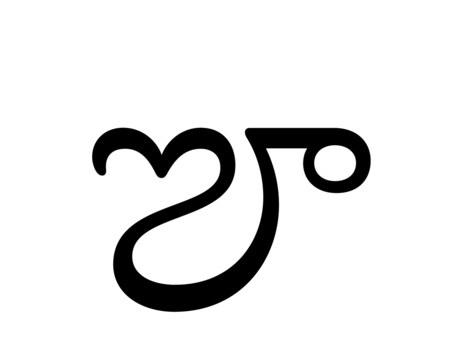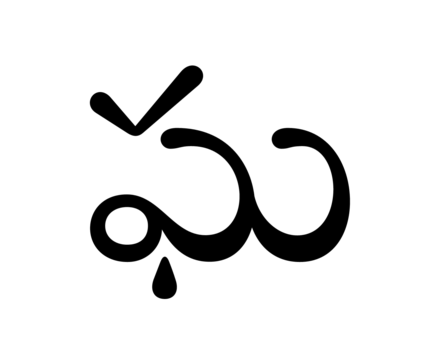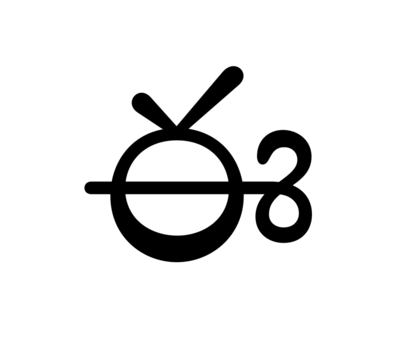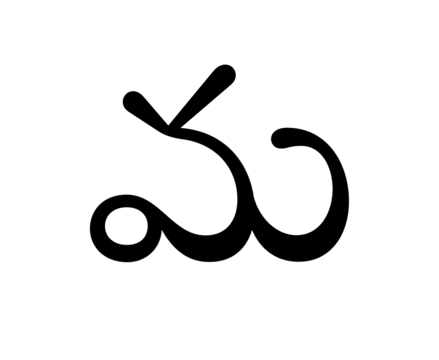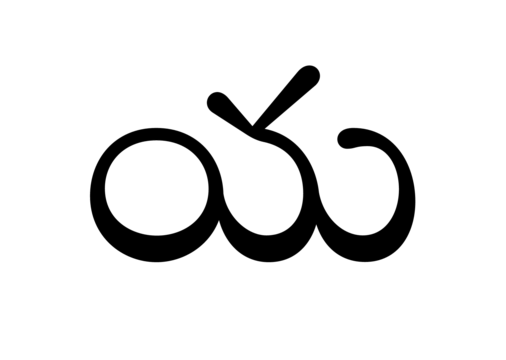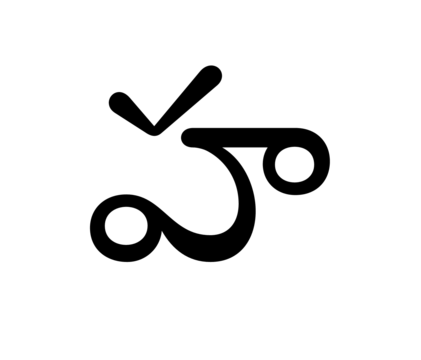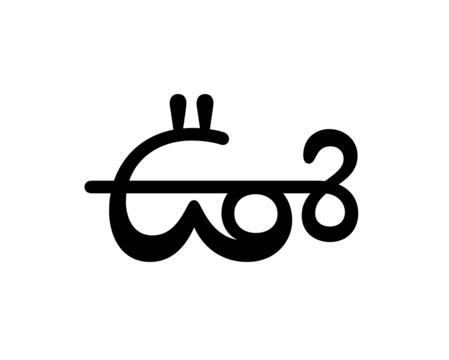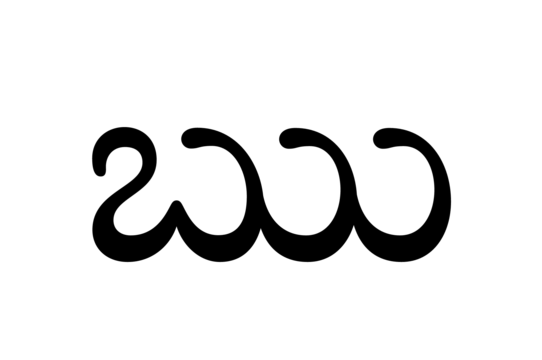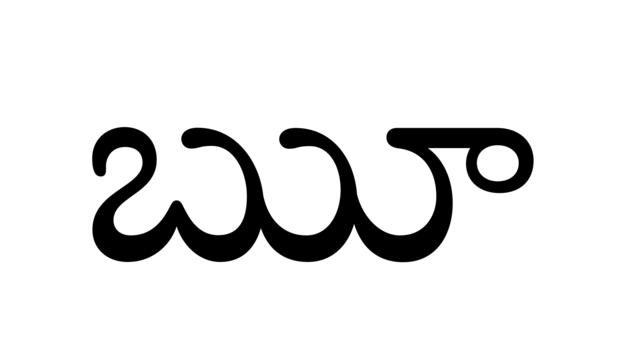
Deccan Telugu is the Indian Type Foundry’s first retail release for the Telugu script. This family – designed by Ramakrishna Saiteja – offers five fonts ranging in weight from Light through Bold; each contains 719 glyphs, including the many conjuncts and ligatures necessary for proper Telugu shaping. Deccan Telugu is a text design. Like the traditional typefaces that have been used in the design of text-heavy Telugu documents for decades, Deccan Telugu’s forms feature a strong vertical contrast. The sides of the characters tend to be drawn with rather thin hairlines, while the curves on the bottom portions of the base characters are gracefully curved and feature heavy swelling. While this amount of contrast is to be expected in the Bold weight, Saiteja has brought it in every style excellently, including the Light.
| Family Name | Deccan Telugu |
|---|---|
| Designer(s) | Ramakrishna Saiteja |
| Available Style | Light, Regular, Medium, Semibold, Bold |
| Classification | Serif |
| Supported Languages | Telugu |